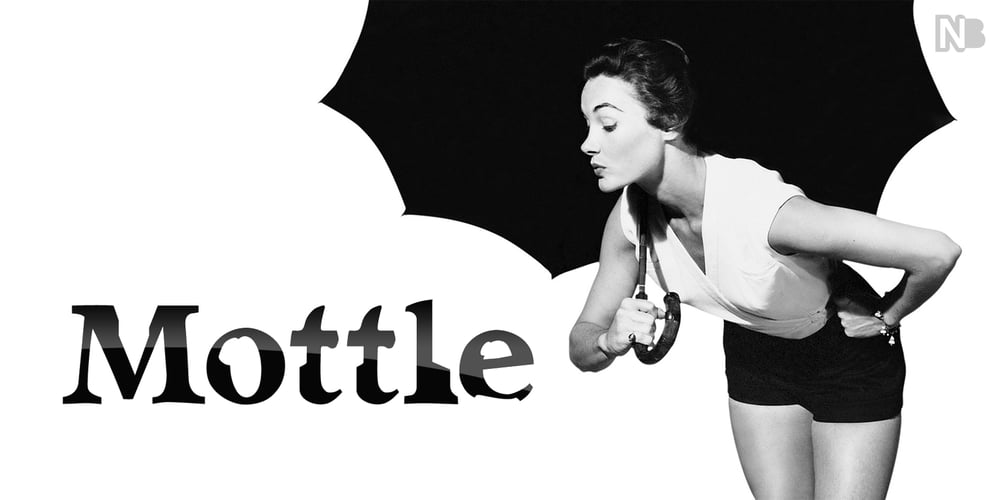
Mottle Font Family was designed by Ryan Maelhorn and published by NONBook. Mottle contains 1 styles and family package options. Mottle is a strong, chiseled typeface made to help you stand out from the crowd. Gnarled after patterns found in nature such as marble, tree bark, and the brindled coats of animals, Mottle exudes a unique, natural, yet man made look. Great for display use such as logos, movie and album covers, and signage, Mottle gives off a feeling that is old yet new, gothic yet modern. Mottle supports over 30 languages, featuring over 400 glyphs and 500 OpenType kerning pairs. The Dollar, Euro, Yen, and Pound symbols are included, as well as Extended Diagonal Fractions support, and the Estimated Symbol. Language support for Basic Latin English, Western European Diacritics, Afrikaans, Basque, Breton, Catalan, Croatian, Czech, Danish, Dutch, English, Estonian, Finnish, French, Gaelic, German, Hungarian, Icelandic, Indonesian, Irish, Italian, Latvian, Lithuanian, Norwegian, Polish, Portuguese, Romanian, Saami (Southern), Serbian, Slovak, Slovenian, Spanish, Swahili, Swedish, and Turkish.